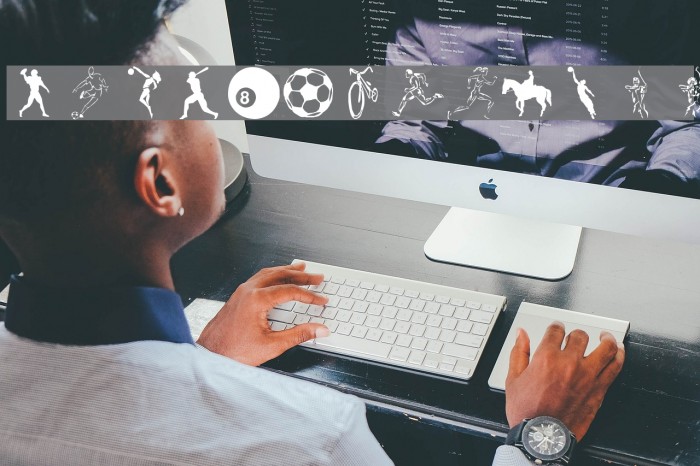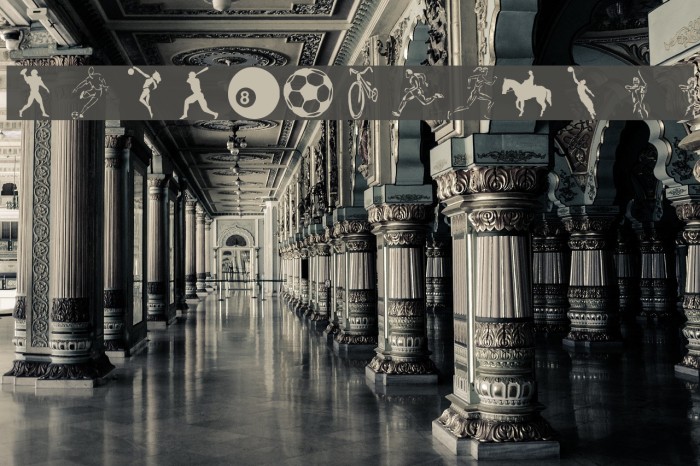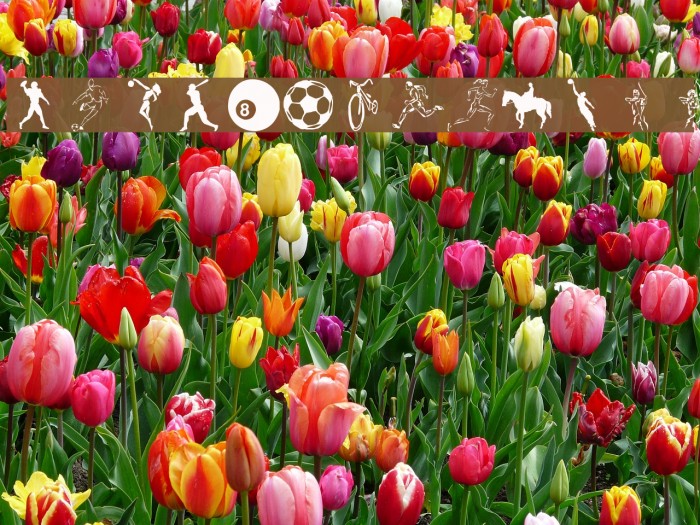
lpsports2 Font
lpsports2 Description
A decorative display font composed of various sports-themed pictograms, each character representing a different athletic activity or sport in a bold, black-and-white silhouette style.
| Overall Style | Decorative, Dynamic, Thematic |
| Use Case | Logos, Posters, Themed graphics, Infographics |
| Proposed Projects | Sports event posters, team logos, educational materials, themed invitations, infographics. |